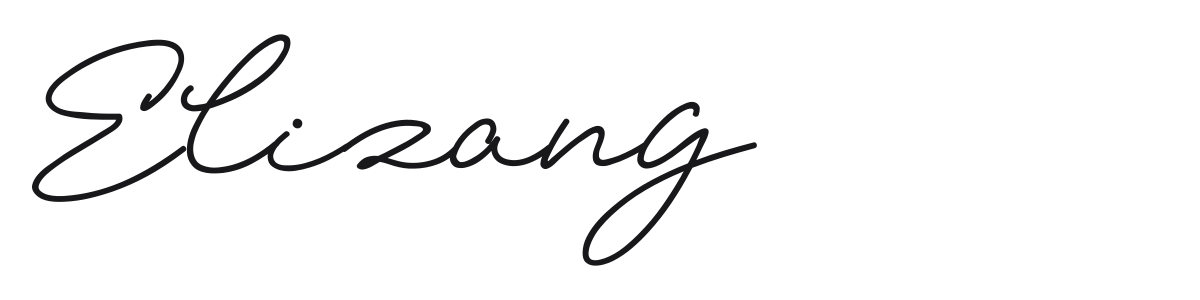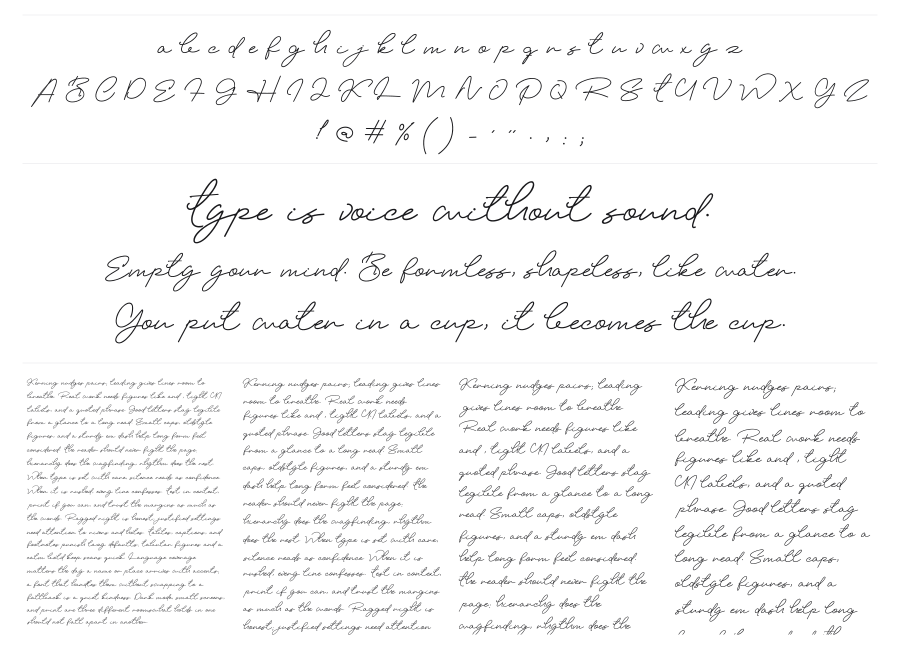
Elizany
Elizany is a thin flowing formal script with long looping ascenders and descenders that weave together in an airy, romantic rhythm. The near-monoline stroke weight keeps the design feeling light and modern rather than heavy or traditional. Strong at large sizes for wedding stationery, logos, and lifestyle branding.